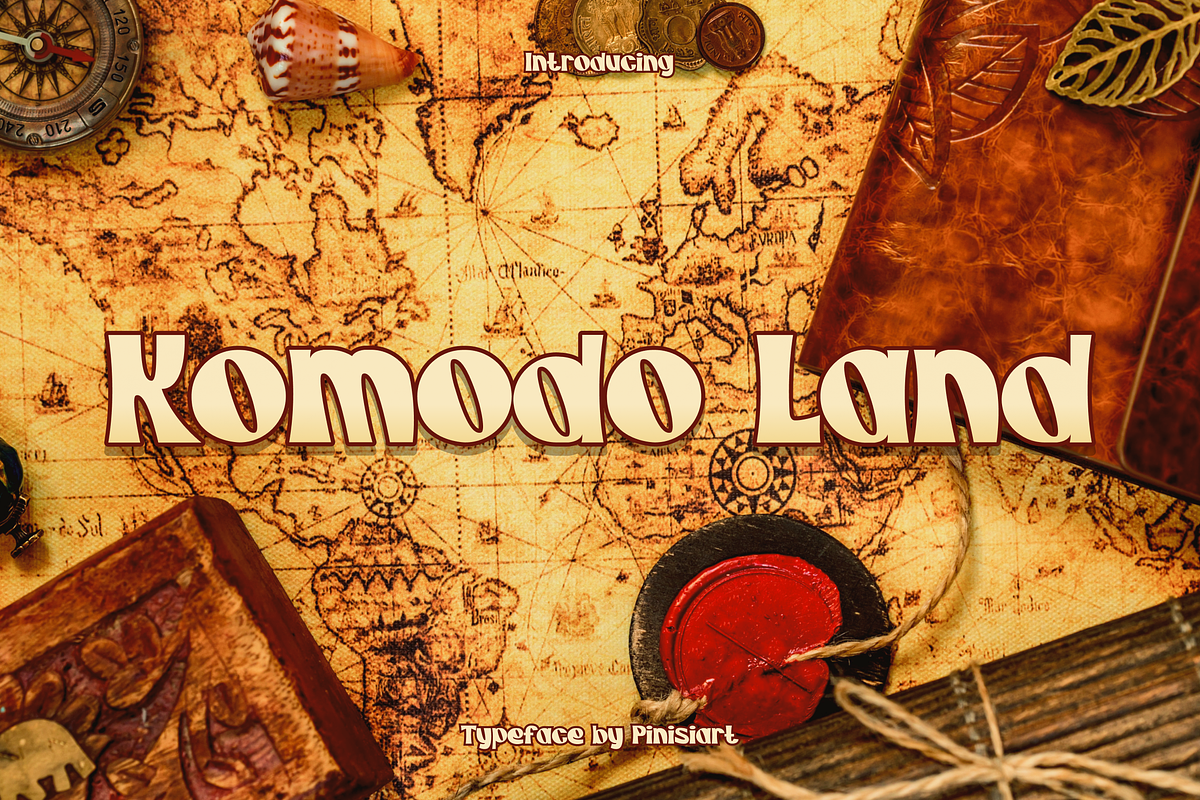
Komodo Land – Adventure Display Font Free Download is a rugged and adventurous typeface designed to bring a sense of exploration and excitement to your designs. Perfect for travel brands, adventure logos, outdoor event posters, and nature-themed projects, this font captures the spirit of discovery and thrill.
With its bold letterforms and dynamic style, Komodo Land – Adventure Display Font Free Download stands out with strong character and a bold, daring aesthetic. Whether you're designing a trekking brand, an adventure magazine, or a logo for an outdoor event, this font brings excitement and authenticity to your typography. Try it in your next project to experience its bold energy—then upgrade to a commercial license when you're ready to take it live.